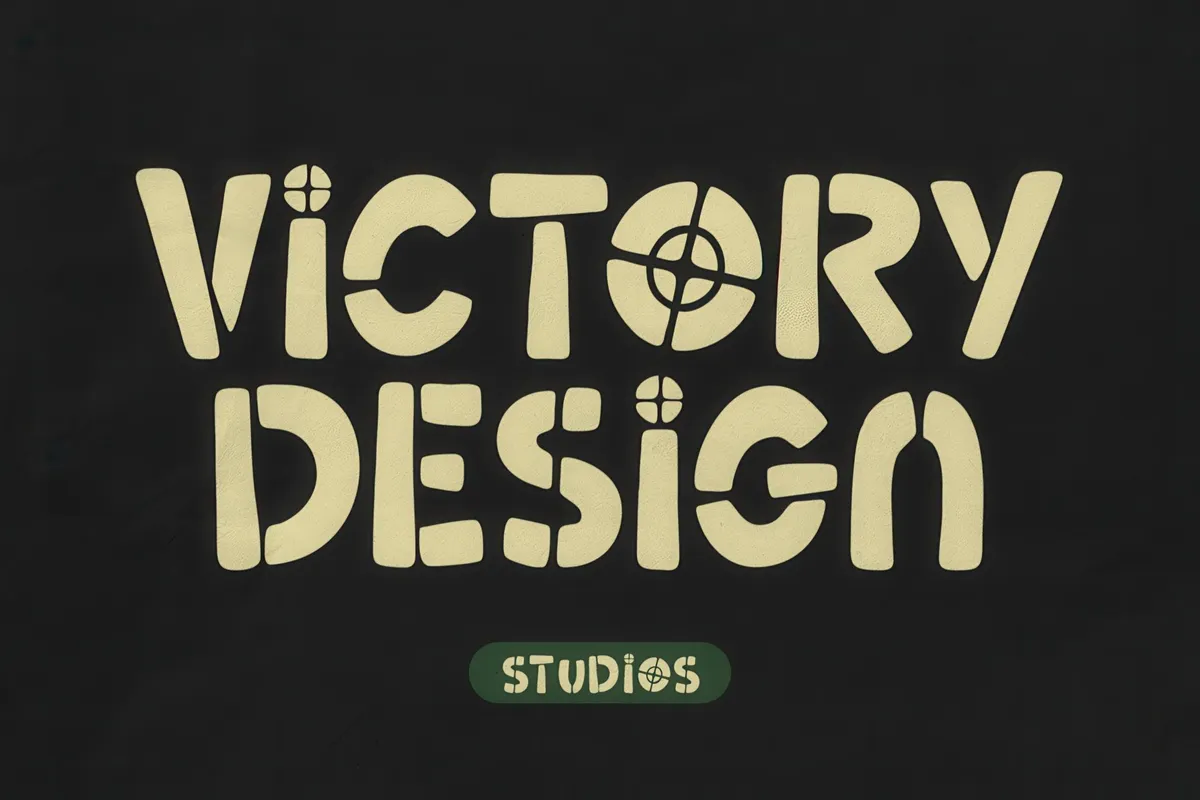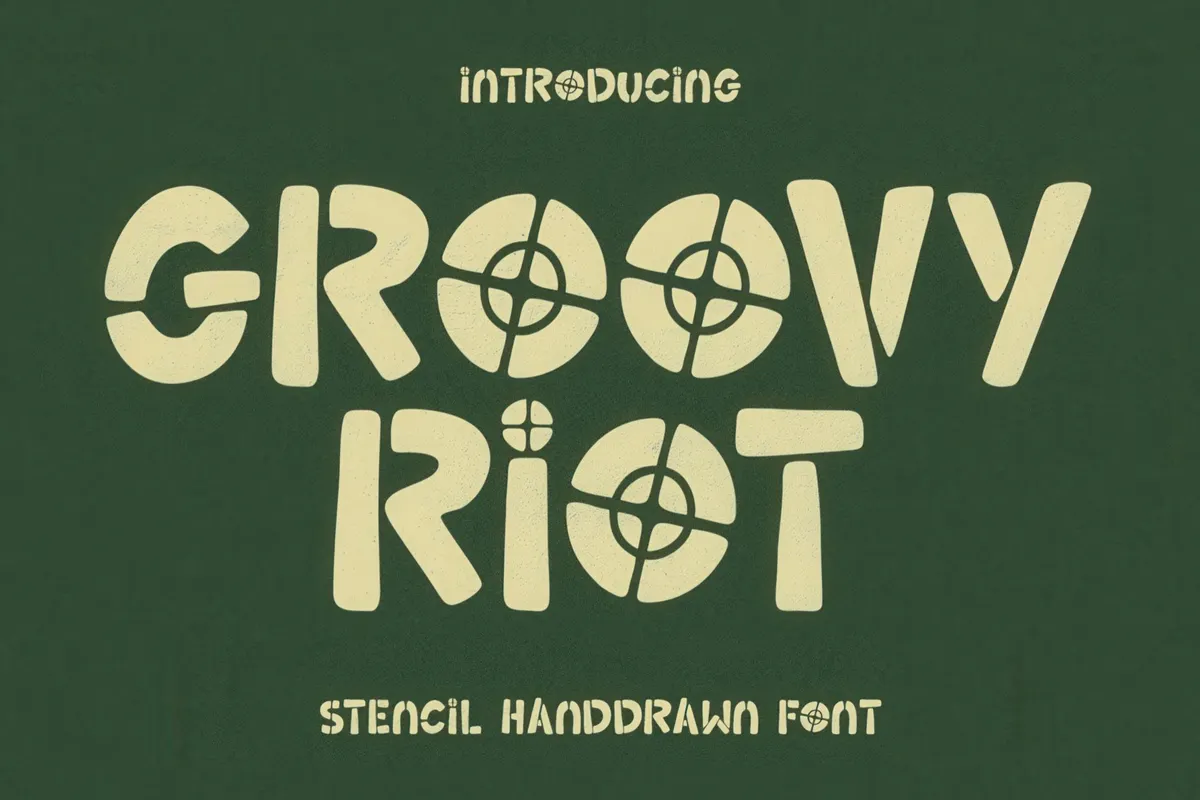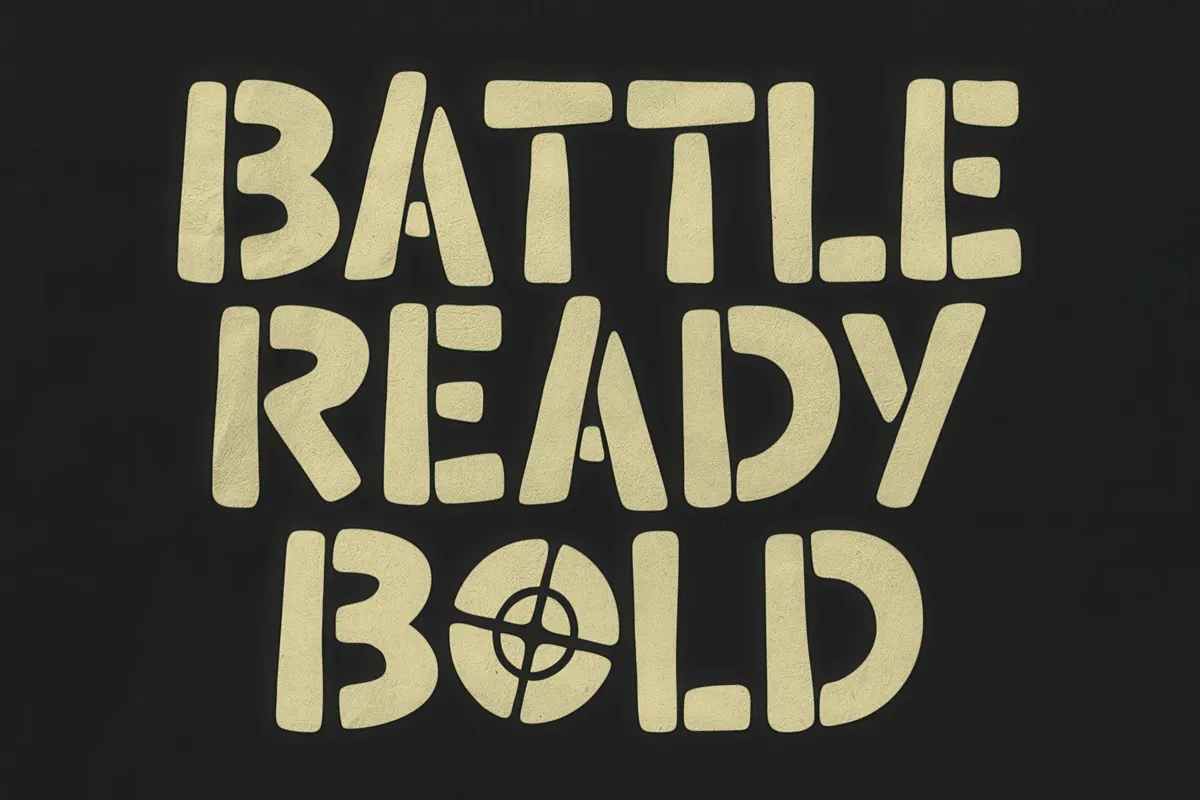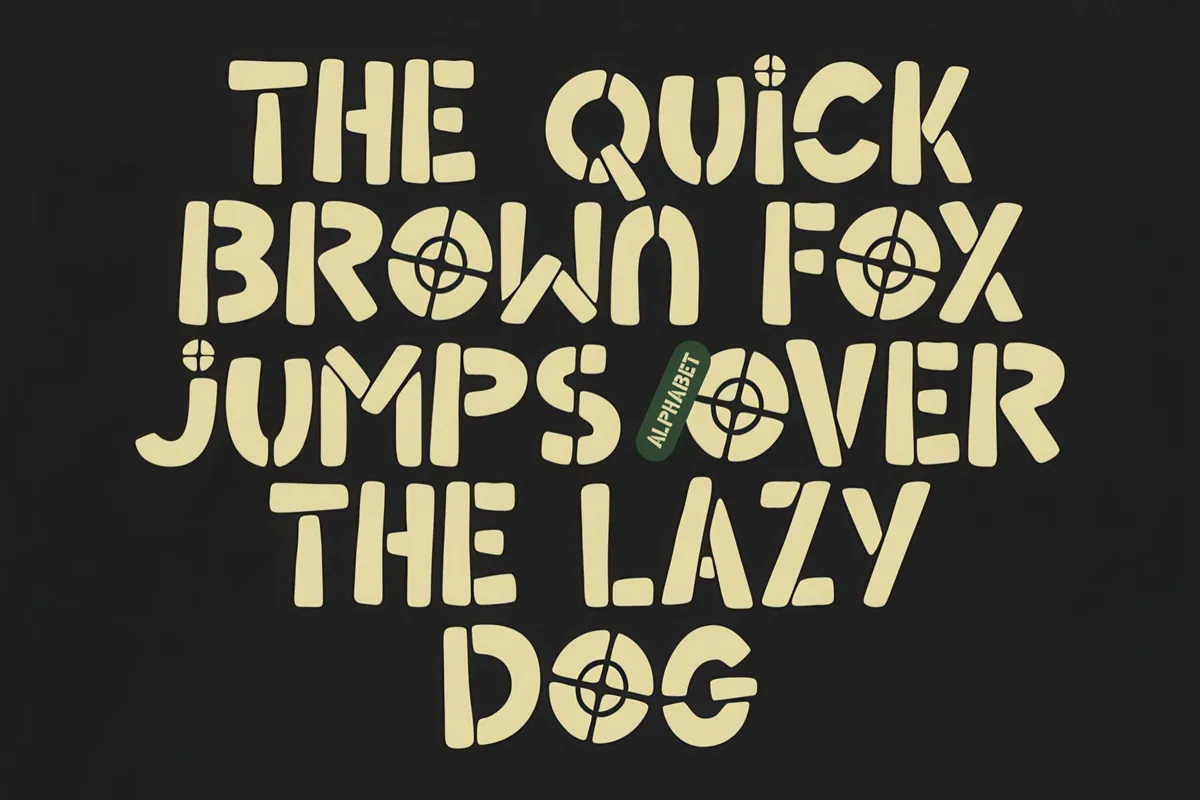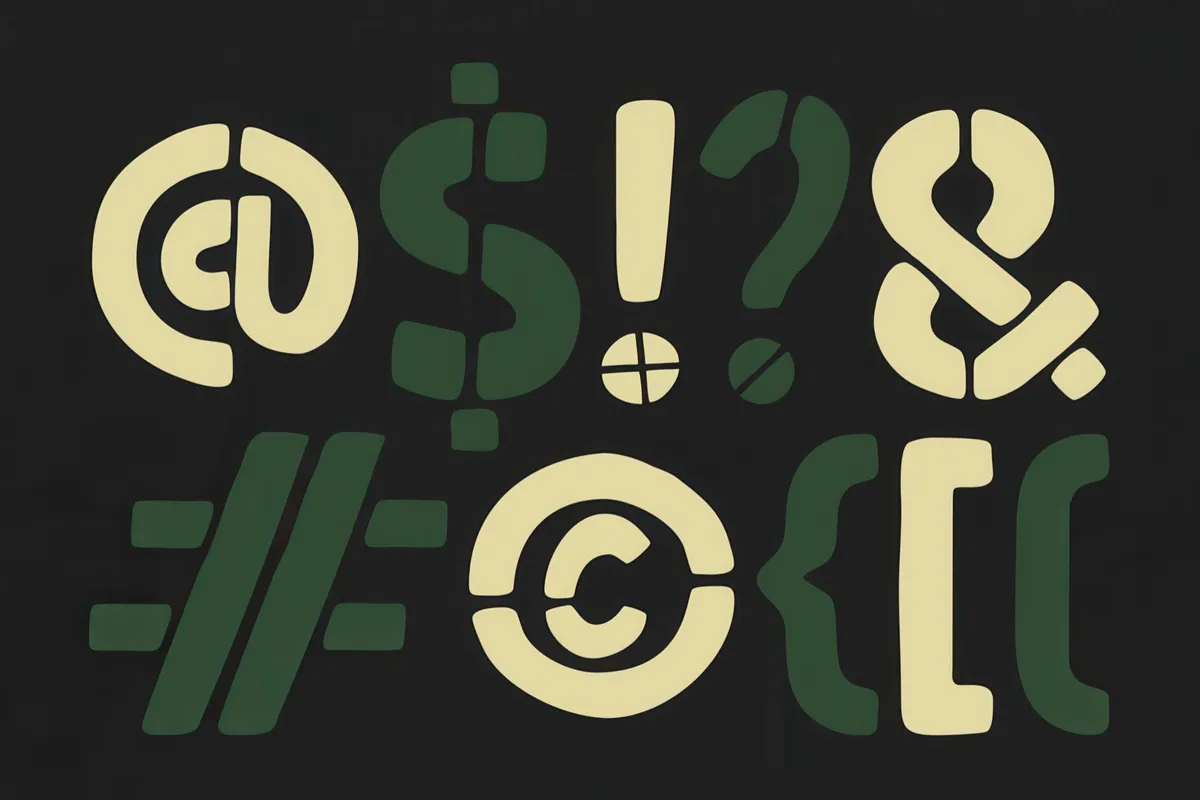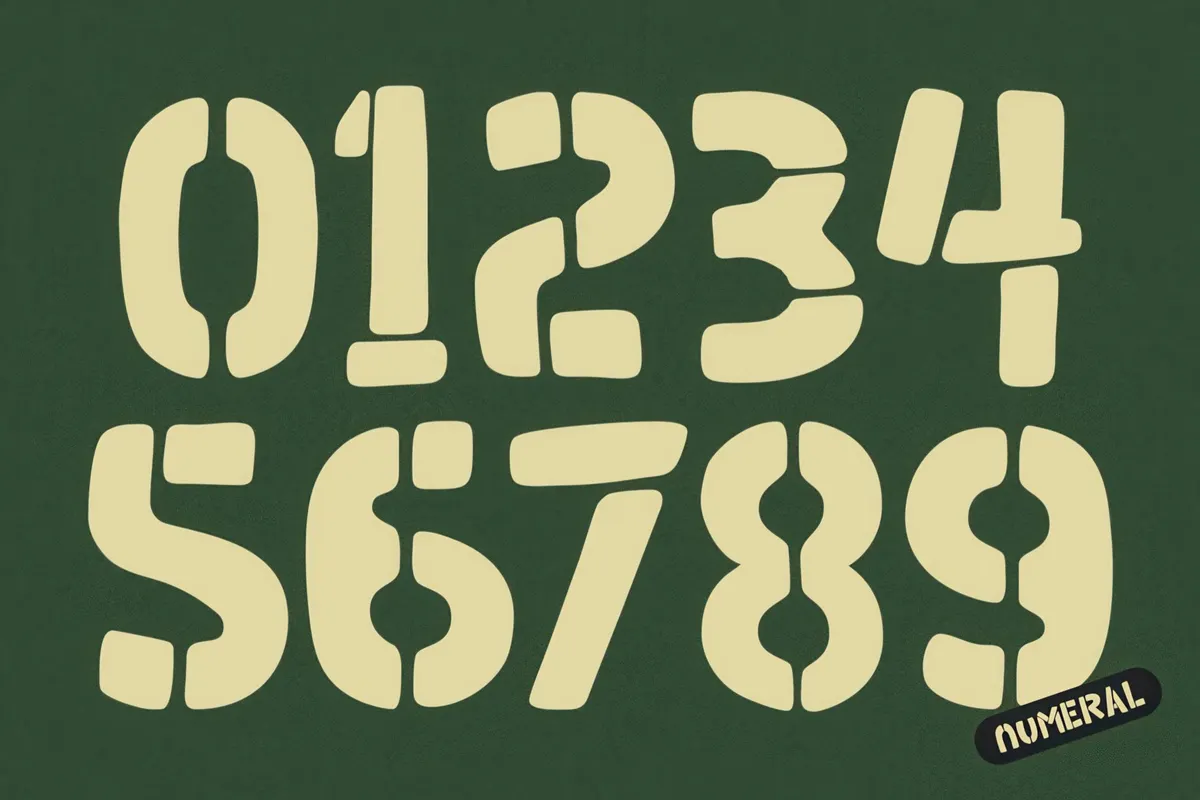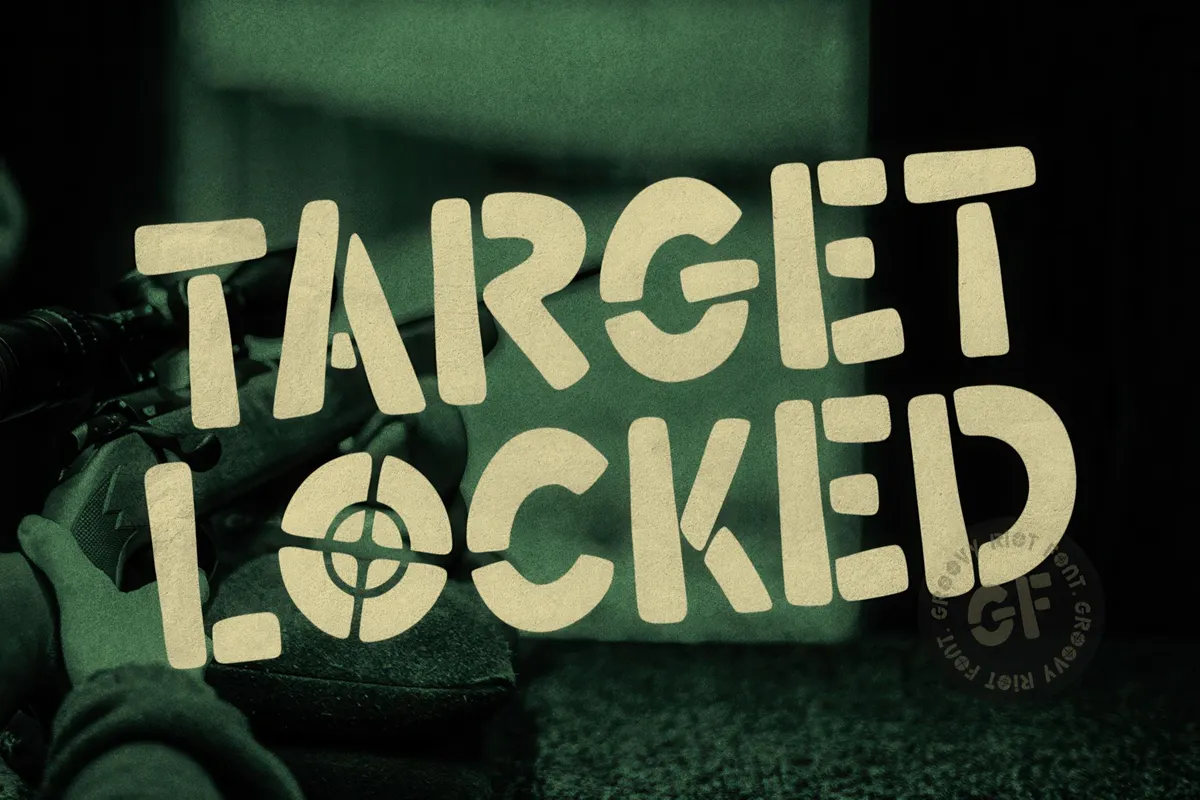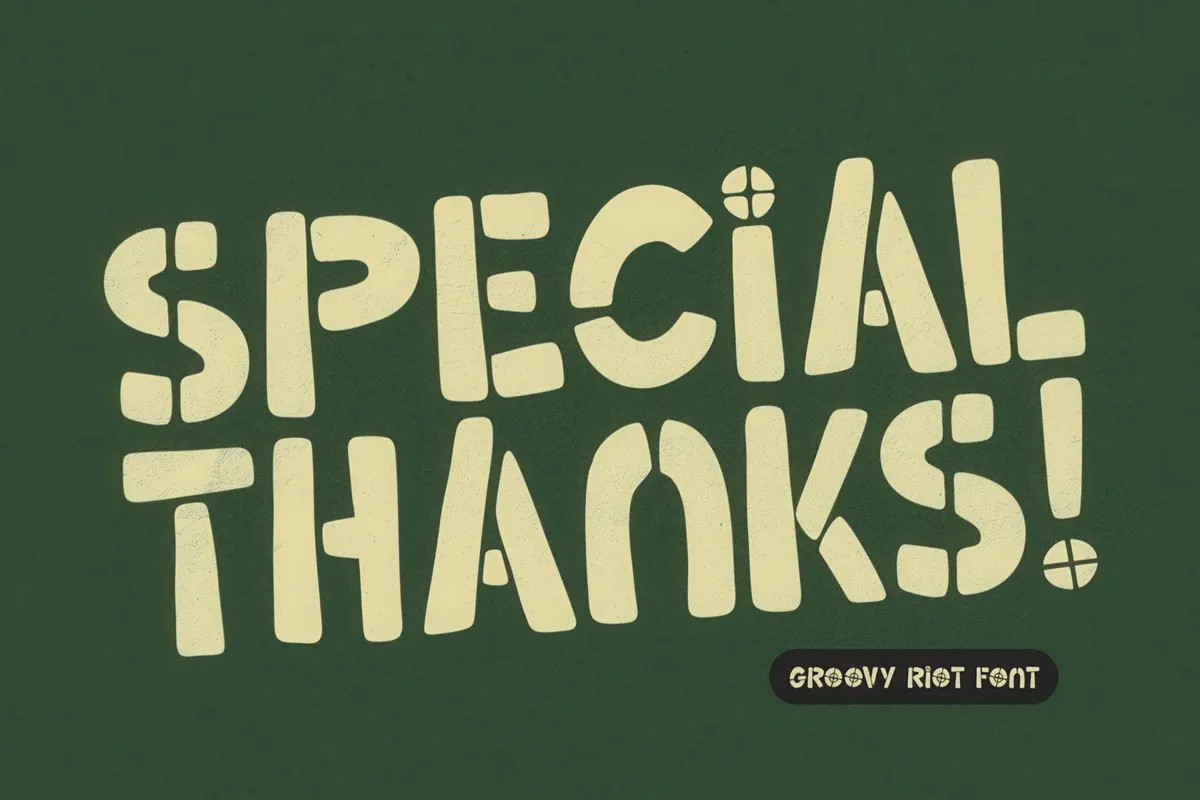
Groovy Riot — Stencil Handwritten Font
Groovy Riot is a rebellious kid with a pocketful of attitude. It's got that whole backyard art project feel like it was born from a late-night stencil session with friends, a little too much caffeine, and just enough chaos.
This font doesn’t just walk the line between playful and edgy; it hops, skips, and jumps across it with style. It’s got a hand-crafted grit that makes it perfect for posters, flyers, or anything that could use a touch of retro flair without losing a bit of that hand-made vibe. The set includes uppercase, lowercase, numeral, punctuation, and multilingual characters to make your vision come true.